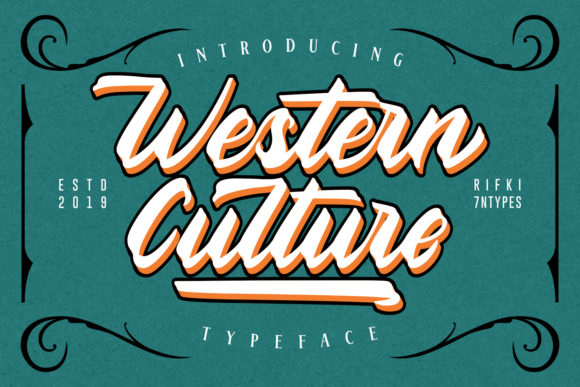
Unleash the Untamed Spirit of the West with "Western Culture" - A Font Bursting with Bold, Striking Style!
Journey into the rugged landscapes and vibrant heritage of the American Frontier with the captivating "Western Culture" font, a masterpiece of digital artistry inspired by the boundless spirit of the Wild West. This distinctive font family, proudly hailing from the creative forge of Rifki (7ntypes), embodies the rugged charm and timeless elegance of the American West, injecting a raw and untamed energy into your designs.
The Western Culture font is a visual symphony of bold strokes, sweeping curves, and intricate details that evoke the spirit of adventure, freedom, and boundless possibilities that define the American Frontier. Its unique characters, meticulously crafted to capture the essence of the Old West, dance across the page with an energy that is both captivating and commanding.
With Western Culture, you have the power to transform ordinary designs into extraordinary creations. Its versatility is as boundless as the prairies themselves, lending its distinctive charm to a myriad of design projects, from logos and posters to branding and social media graphics. Unleash your imagination and watch as your designs take on a life of their own, resonating with the raw beauty and untamed spirit of the Wild West.
Whether you're a seasoned designer seeking a font that exudes character and authenticity or a budding artist yearning to infuse your creations with a touch of Western flair, Western Culture is your muse. It's the perfect font to add an instant touch of rugged sophistication to your designs, captivating your audience and leaving a lasting impression that echoes the timeless allure of the American Frontier.